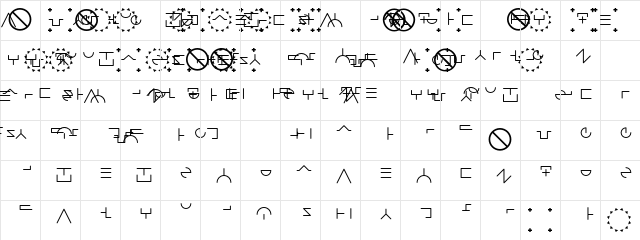
Agitprop Regular
Design Context for Agitprop Typeface
Agitprop is a composed and adaptable typeface that performs quietly and consistently across a wide range of design contexts.